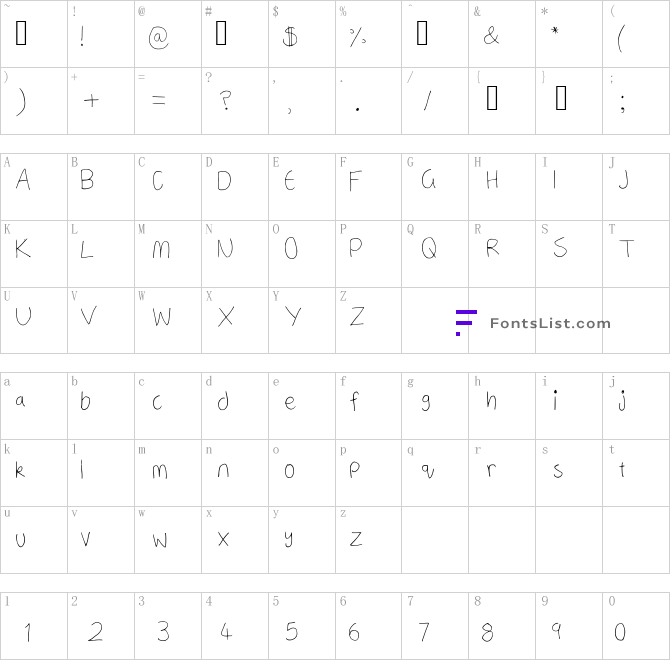
- Font Name:a neatish font
a-neatish-font-Regular.ttf is a very beautiful artistic font, a-neatish-font-Regular.ttf is widely used in the design and printing of various books and pictures,a-neatish-font-Regular.ttf has a strong visual impact,a-neatish-font-Regular.ttf is a commonly used font in newspapers, magazines and books, and is used in posters, e-commerce Poster design, store design, logo design, font design and other fields.a-neatish-font-Regular.